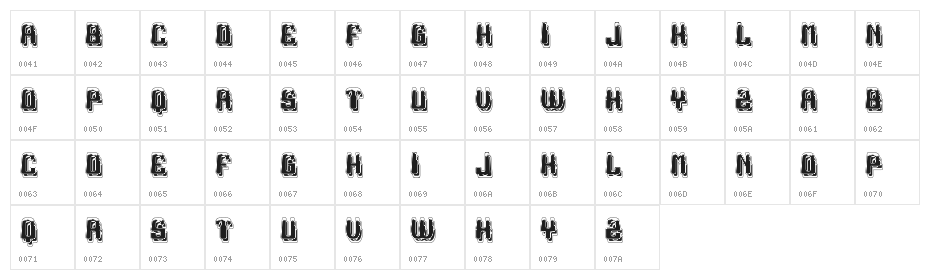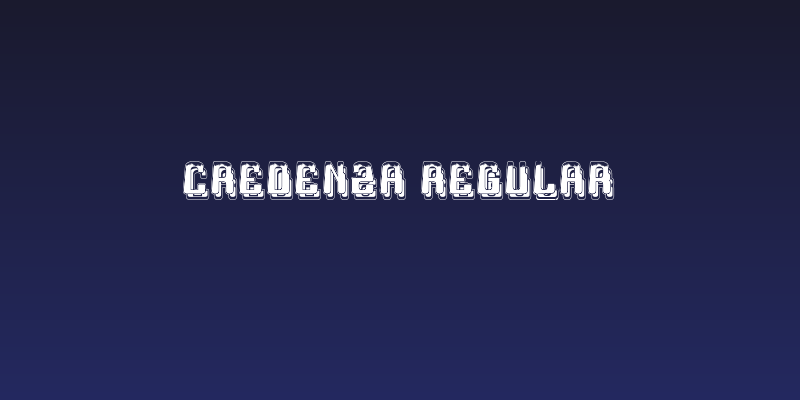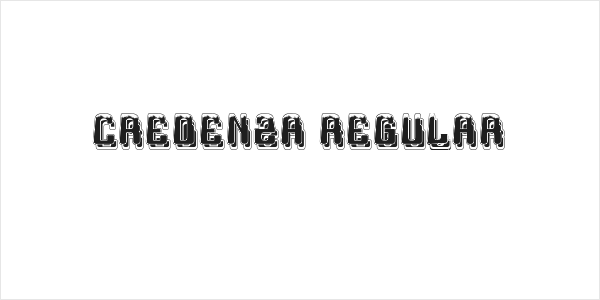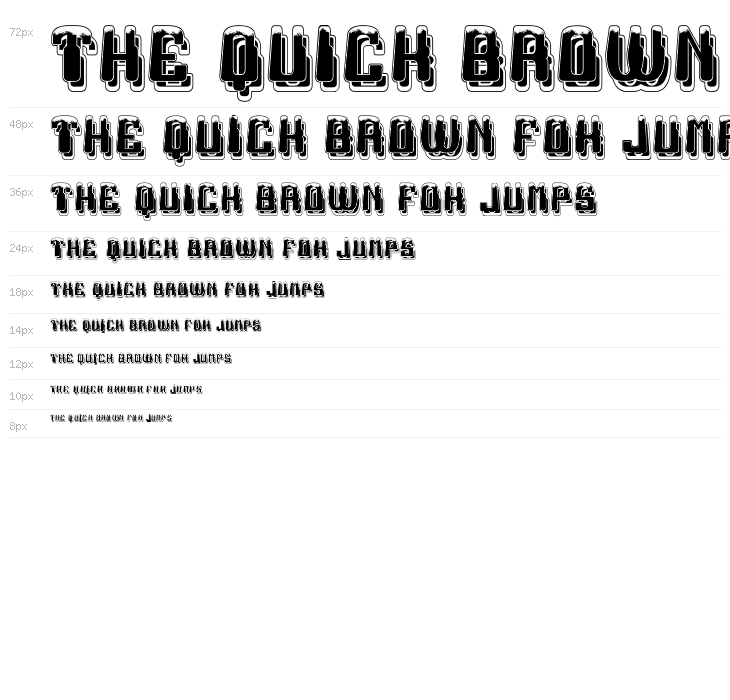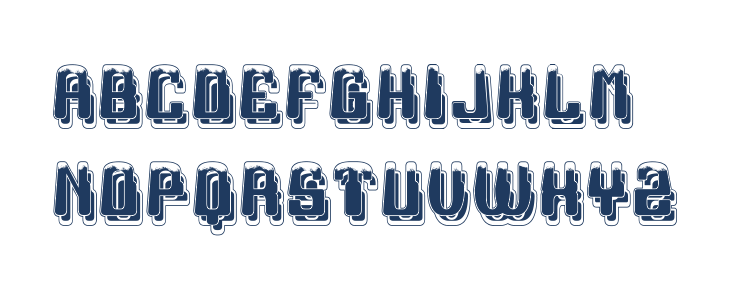
Credenza Regular Font
Credenza Regular Description
This font features a bold, three-dimensional appearance with a distinct shadow effect that gives it a striking, layered look. The characters are uppercase and have a blocky, geometric style with rounded edges, creating a sense of depth and dimension. The shadow effect is consistent across all characters, adding a playful yet robust feel. The font is highly decorative, making it ideal for eye-catching designs. Its unique style is reminiscent of retro or vintage signage, yet it maintains a modern twist with its clean lines and structured form.
| Overall Style | Retro, Modern |
| Proposed Projects | Ideal for poster designs, retro-themed projects, branding, and headlines that require a bold statement. |